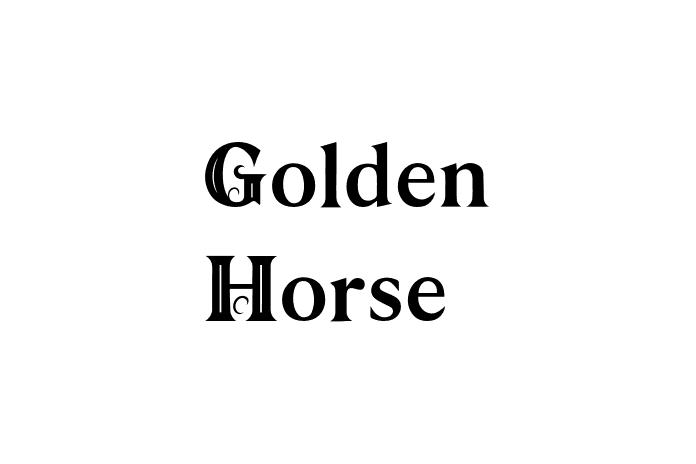
Breasto Display Font
Breasto Display Font is a Display Serif Font It has both a modern and retro look. Comes with alternatives and ligatures, and helps to create stunning logos, quotes, posts, and blog posts. branding projects, magazine imagery, wedding invitations, and much more.
Typeface classification Display,Serif